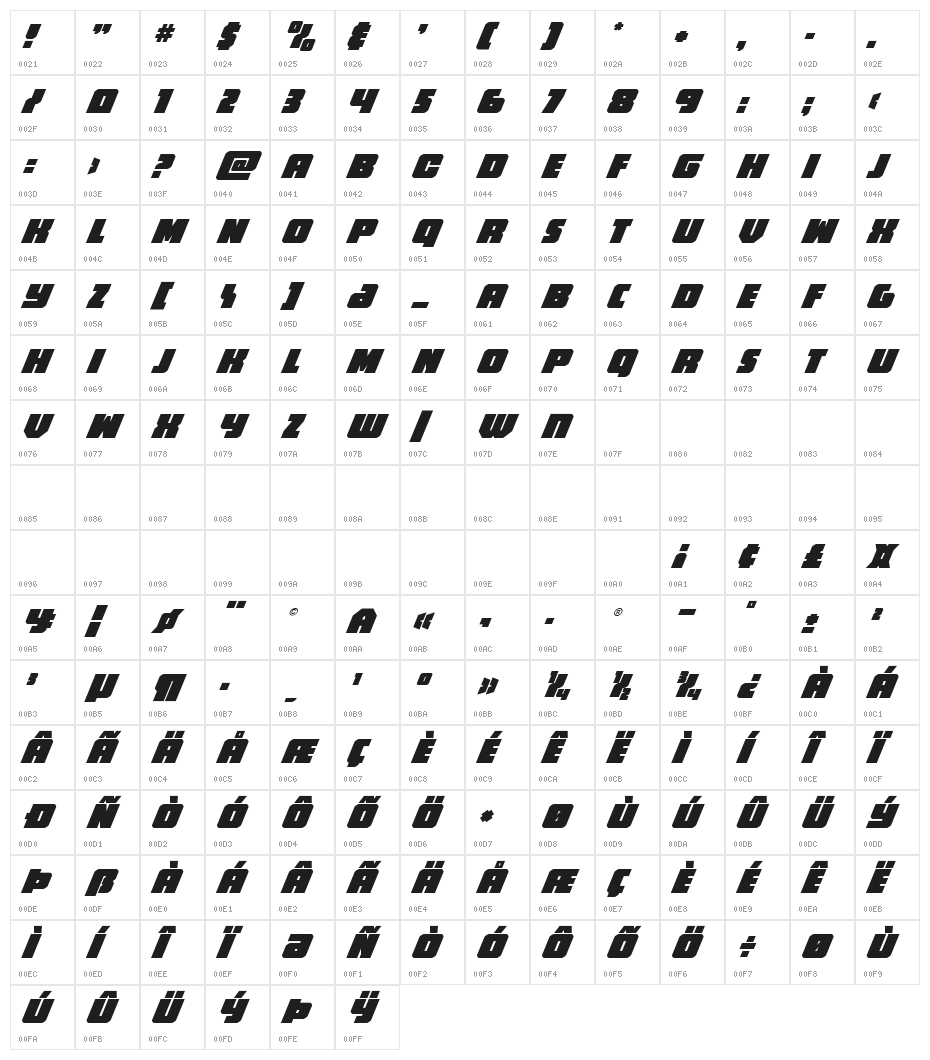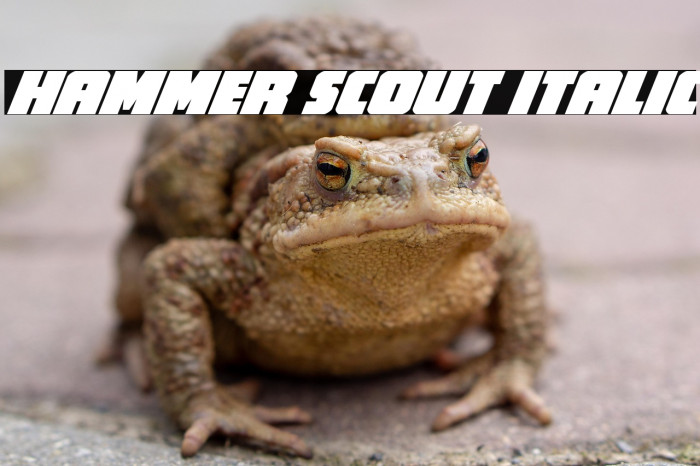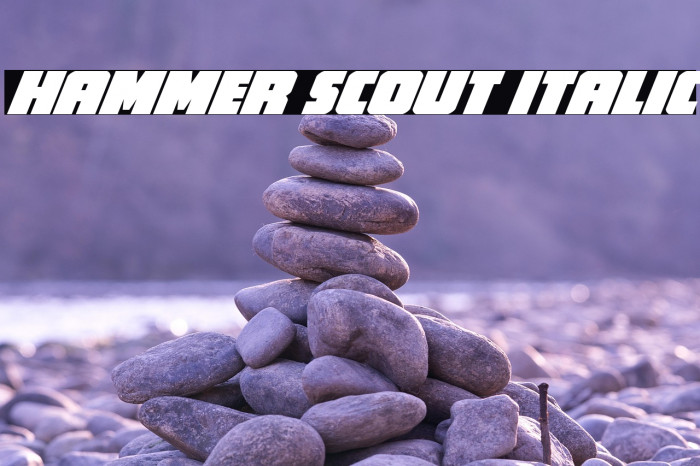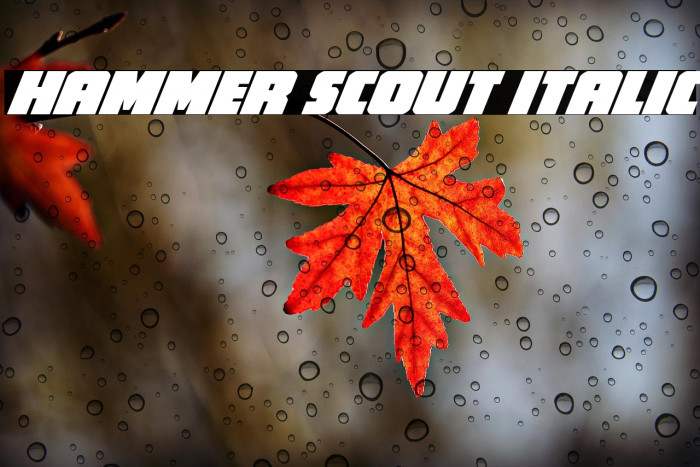
Hammer Scout Italic Font
Hammer Scout Italic Description
This font features a bold and dynamic style with a strong italic slant, giving it a sense of motion and energy. The characters are thick and robust, with sharp angles and a geometric structure that conveys strength and modernity. The uppercase and lowercase letters maintain a consistent weight, ensuring readability while emphasizing the font's bold nature. The numbers and special characters follow the same design principles, making them suitable for impactful displays. The overall appearance is assertive and attention-grabbing, ideal for projects that require a strong visual presence.
| Proposed Projects | Ideal for sports branding, action movie posters, dynamic logos, and bold headlines. |